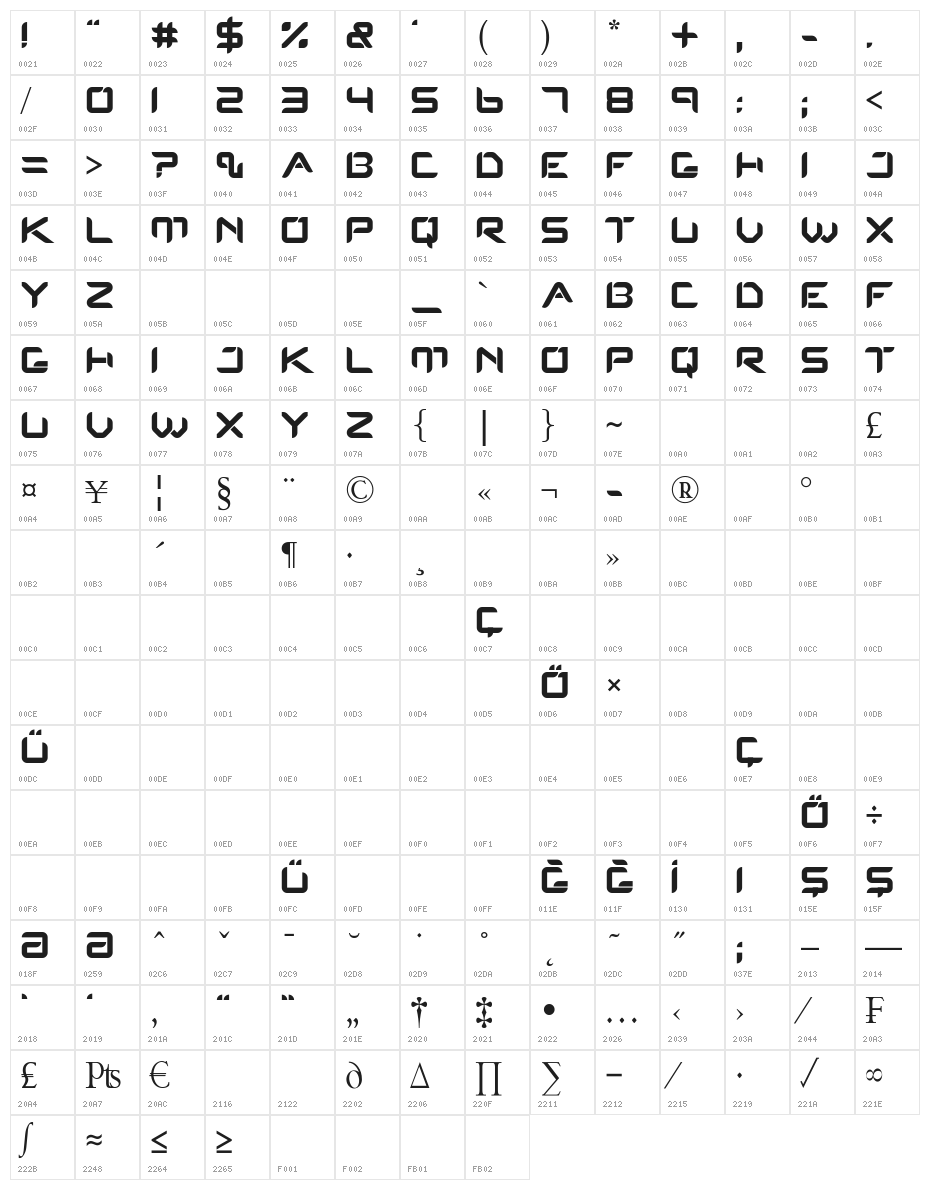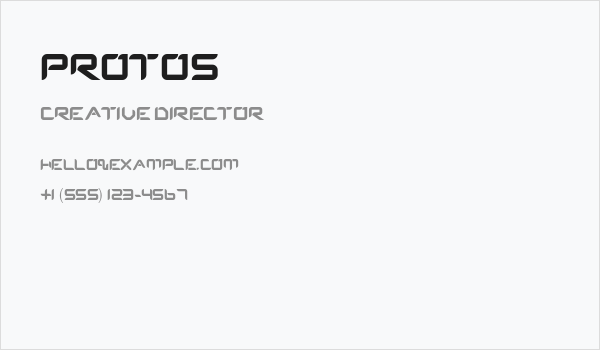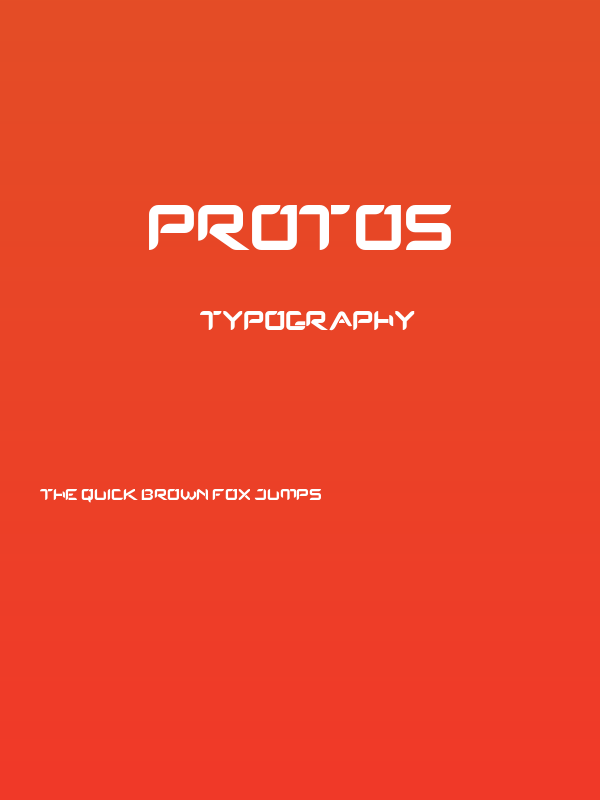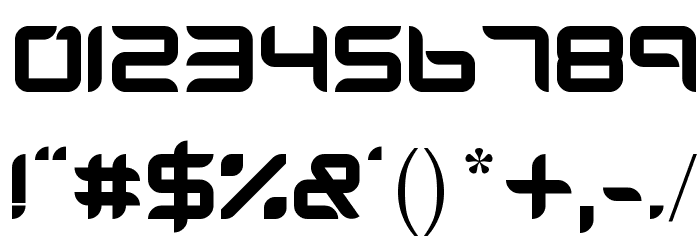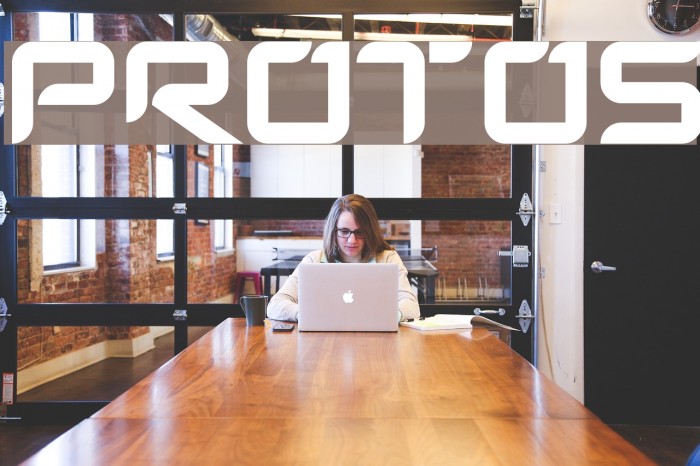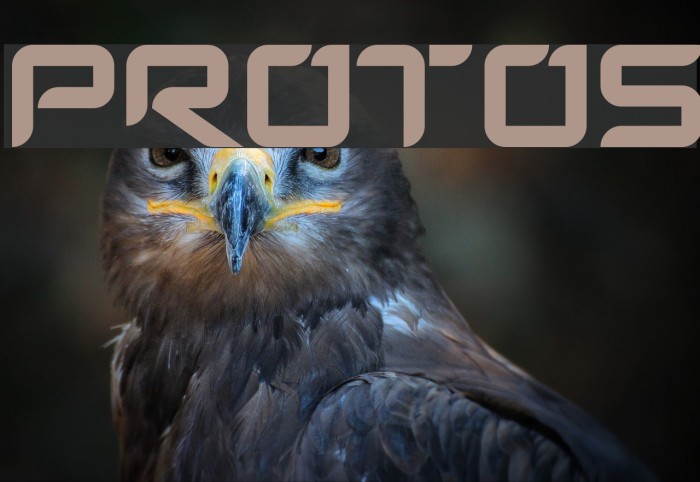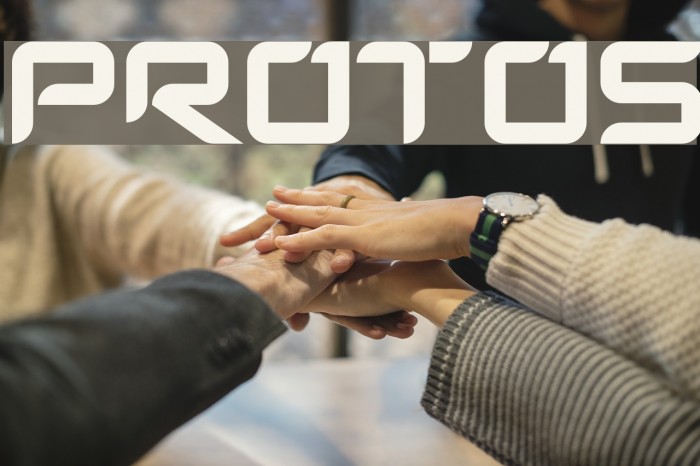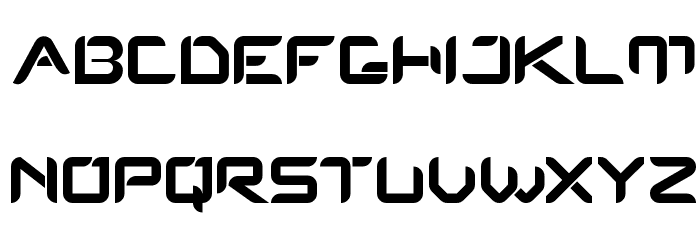
Protos Font
Protos Description
This font features a futuristic and geometric design, characterized by its bold and angular letterforms. The characters are constructed with a consistent stroke width, giving it a uniform appearance. The sharp edges and unique cutouts within each letter create a dynamic and modern aesthetic. The font maintains a balanced structure, with each character having a distinct and recognizable form. Its design is both innovative and functional, making it suitable for a variety of creative applications. The font's style is particularly well-suited for projects that require a contemporary and tech-inspired look.
| Proposed Projects | Ideal for technology branding, sci-fi movie posters, video game titles, and modern digital interfaces. |